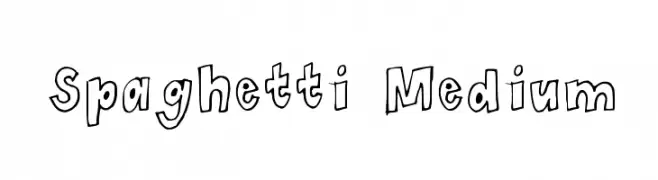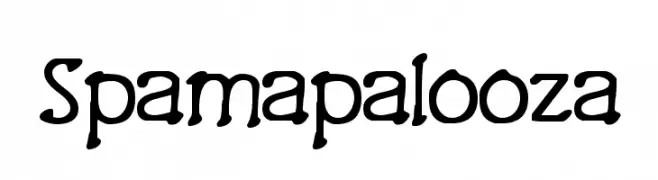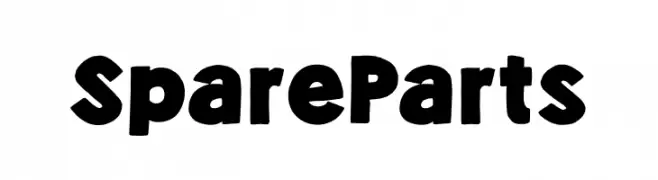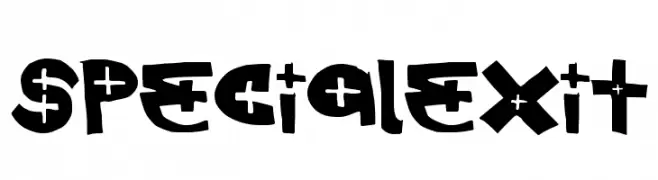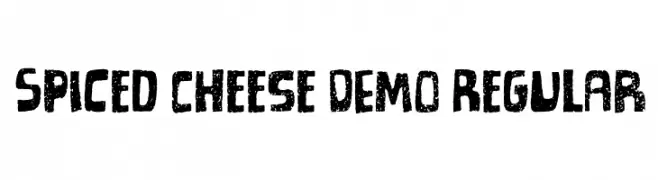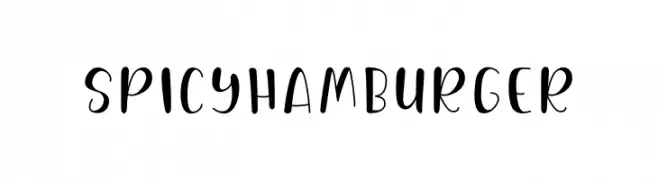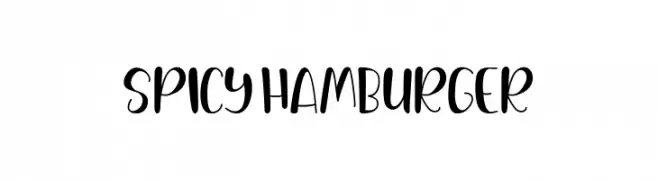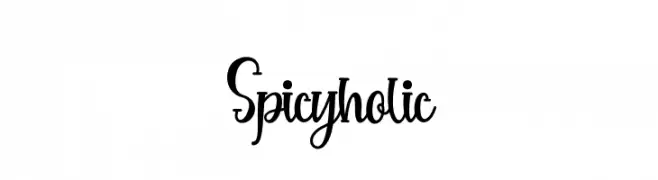
A bold, rounded, and playful font with a hand-drawn feel.
Comic-inspired, character-based decorative font with illustrated glyphs.
A bold and playful font with quirky, artistic characters.
A bold, textured font with a rugged, vintage appearance.
A playful, hand-drawn style font with rounded, irregular letterforms.
A playful, modern handwritten font with smooth curves and a lively appearance.
A bold, rounded, and playful font with a hand-drawn style.
A playful and whimsical font with exaggerated curves and a modern flair.